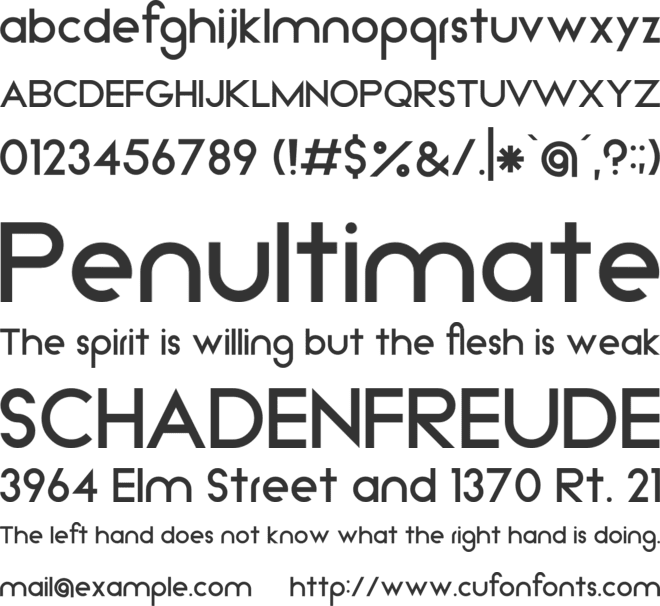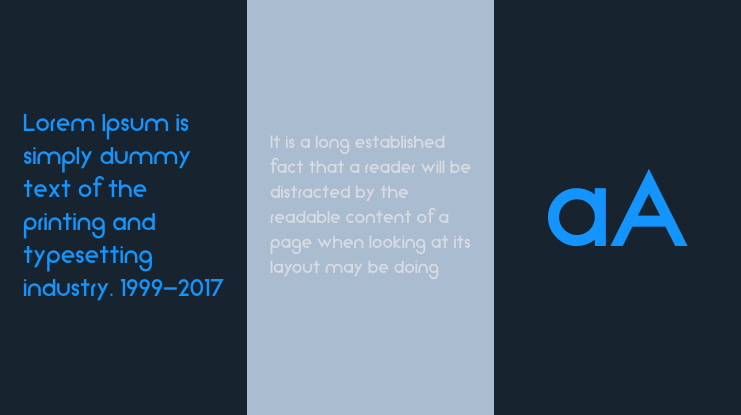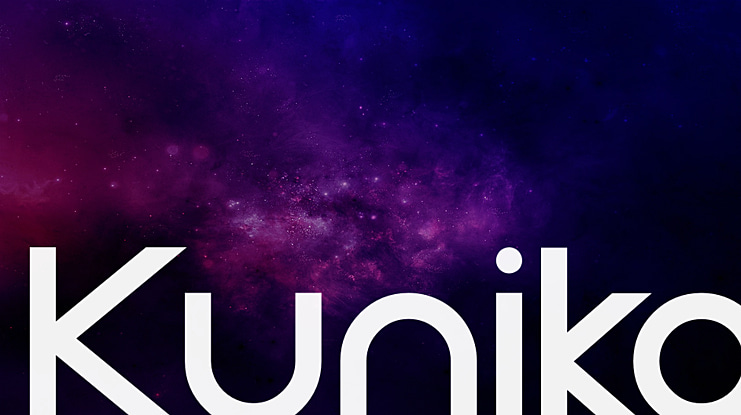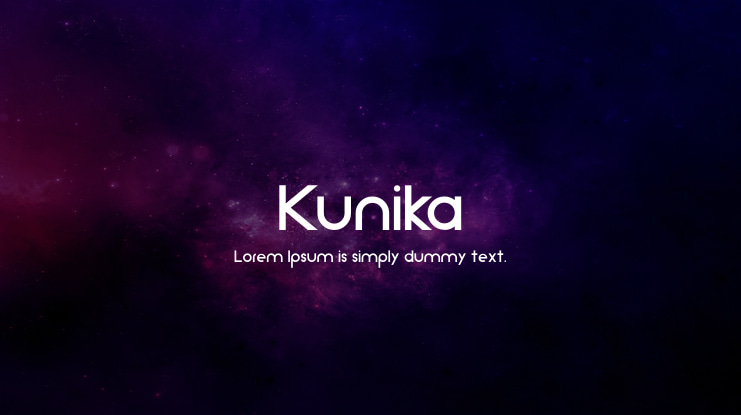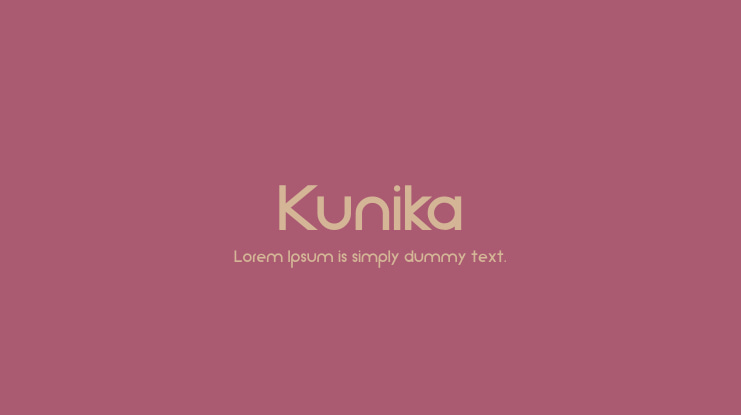
This font is a free typeface designed by Leo Kuroshita with a condensed style, simple semi-round style. Kunika Font is the right choice for logos, brands, company names, fashion, food menus, brand names, branding, brands, quotes, album covers, and other projects. The Kunika font is here to take the quality of your designs to the next level.